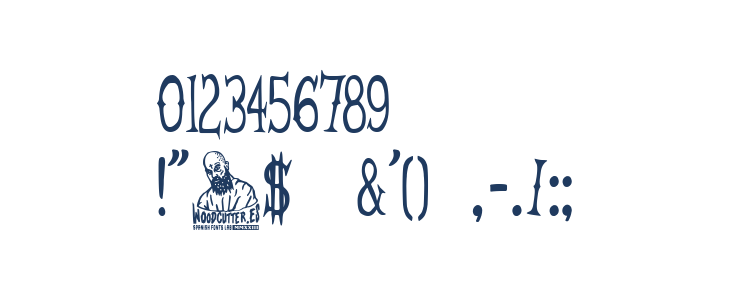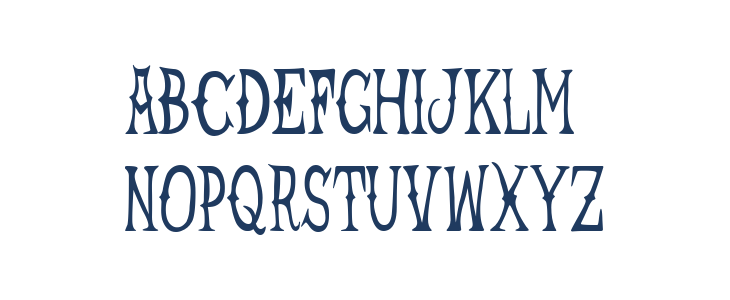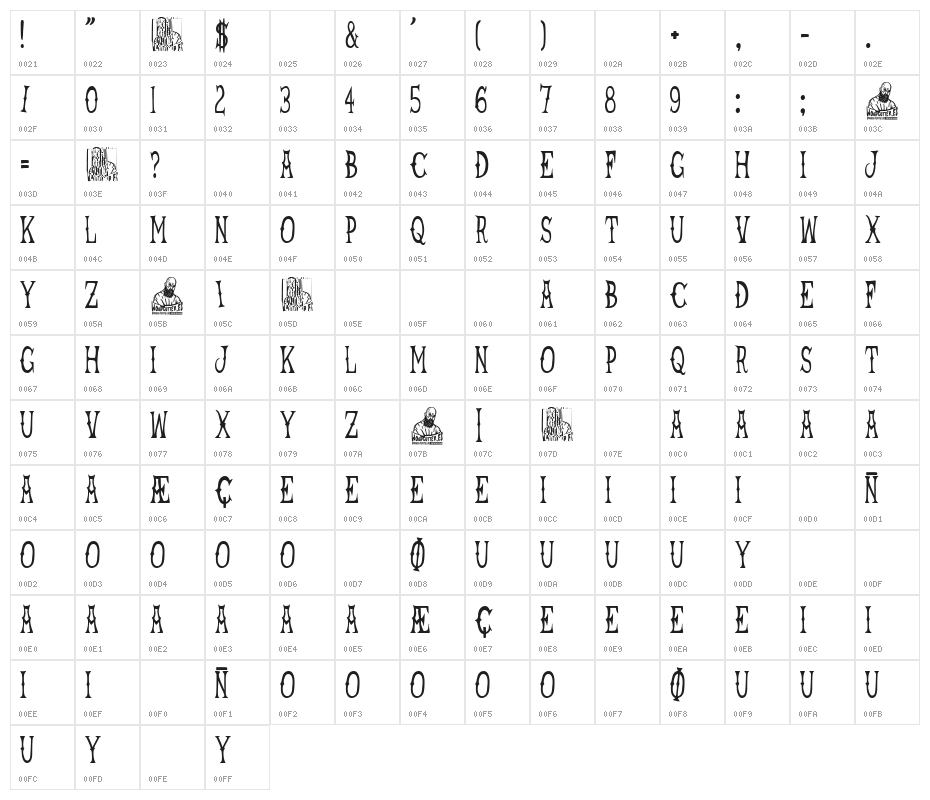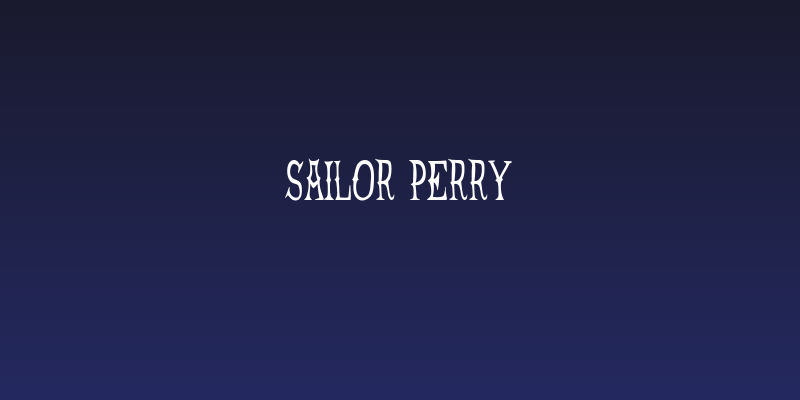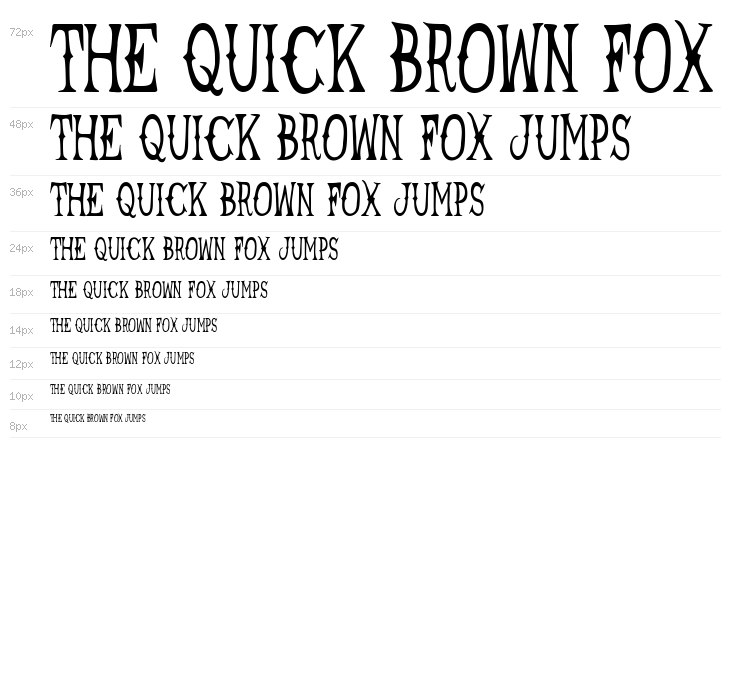
Sailor Perry Font
A decorative display font with exaggerated, flared serifs and a hand-drawn, vintage tattoo-inspired appearance. The letterforms are tall and narrow, with playful curves and uneven stroke widths, evoking a nautical or old-school vibe.
| Width | Condensed |
| Overall Style | Vintage, Decorative, Nautical |
| Proposed Projects | Posters, tattoo designs, branding for barbershops or bars, event flyers, themed packaging. |